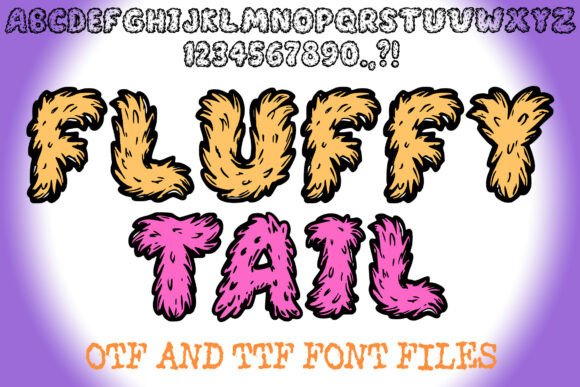
Introducing Fluffy Tail Font: The Ultimate Playful Display Font
Are you looking for a font that can add a touch of playfulness and whimsy to your design projects? Look no further than Fluffy Tail Font, a high-impact decorative display font that is sure to capture attention. In this article, we’ll take a closer look at the features and benefits of Fluffy Tail Font, and explore how it can be used to elevate your designs.
What is Fluffy Tail Font?
Fluffy Tail Font is a hand-drawn, cartoon-inspired typeface that is designed to mimic the texture and movement of fluffy fur or tails. With its exaggerated, soft-edged strokes and bold black outline, this font creates a sense of motion and energy that is sure to engage your audience.
Each uppercase character and number in Fluffy Tail Font is uniquely rendered with fur-like detailing, giving the font a high level of visual texture and personality. Whether you’re working on a children’s book, pet branding, costume party invites, or Halloween assets, Fluffy Tail Font is the perfect choice.
Key Features of Fluffy Tail Font
- Hand-drawn and cartoon-inspired design: Fluffy Tail Font features a unique, hand-drawn design that gives it a playful and whimsical feel.
- Exaggerated, soft-edged strokes: The font’s soft-edged strokes create a sense of motion and energy, making it perfect for designs that need to capture attention.
- Bold black outline: The bold black outline adds depth and definition to the font, making it easy to read and visually appealing.
- Fur-like detailing: Each uppercase character and number features unique fur-like detailing, giving the font a high level of visual texture and personality.
Use Cases for Fluffy Tail Font
Fluffy Tail Font is a versatile font that can be used in a variety of design projects. Here are some use cases where Fluffy Tail Font is particularly effective:
- Children’s books: Fluffy Tail Font is perfect for children’s books, with its playful and whimsical design that will capture the attention of young readers.
- Pet branding: If you’re working on a branding project for a pet-related business, Fluffy Tail Font is a great choice. The font’s fur-like detailing and playful design make it perfect for pet-themed designs.
- Costume party invites: Fluffy Tail Font is also great for costume party invites, with its bold and playful design that will set the tone for a fun and festive event.
- Halloween assets: The font’s spooky-ooky feel makes it perfect for Halloween assets, such as pumpkin carving designs, Halloween party invites, and more.
Benefits of Using Fluffy Tail Font
So why choose Fluffy Tail Font for your design projects? Here are some benefits of using this font:
- Adds personality to your designs: Fluffy Tail Font is a unique and playful font that adds personality to your designs. Its fur-like detailing and soft-edged strokes create a sense of motion and energy that will engage your audience.
- Perfect for designs that need to capture attention: The font’s bold and playful design makes it perfect for designs that need to capture attention. Whether you’re working on a children’s book or a costume party invite, Fluffy Tail Font is sure to stand out.
Tips for Using Fluffy Tail Font
Here are some tips for using Fluffy Tail Font in your design projects:
- Use it sparingly: While Fluffy Tail Font is a fun and playful font, it can be overwhelming if used excessively. Use it sparingly to add emphasis and personality to your designs.
- Pair it with a simple font: To create visual interest, pair Fluffy Tail Font with a simple font. This will create a nice contrast and make your design more visually appealing.
- Experiment with colors: Fluffy Tail Font looks great in bold and bright colors. Experiment with different colors to find the one that works best for your design.
Fluffy Tail Font is a playful and high-impact decorative display font that is perfect for designs that need to capture attention. With its unique, hand-drawn design and fur-like detailing, this font adds personality and visual texture to any design project. Whether you’re working on a children’s book, pet branding, costume party invites, or Halloween assets, Fluffy Tail Font is the perfect choice.